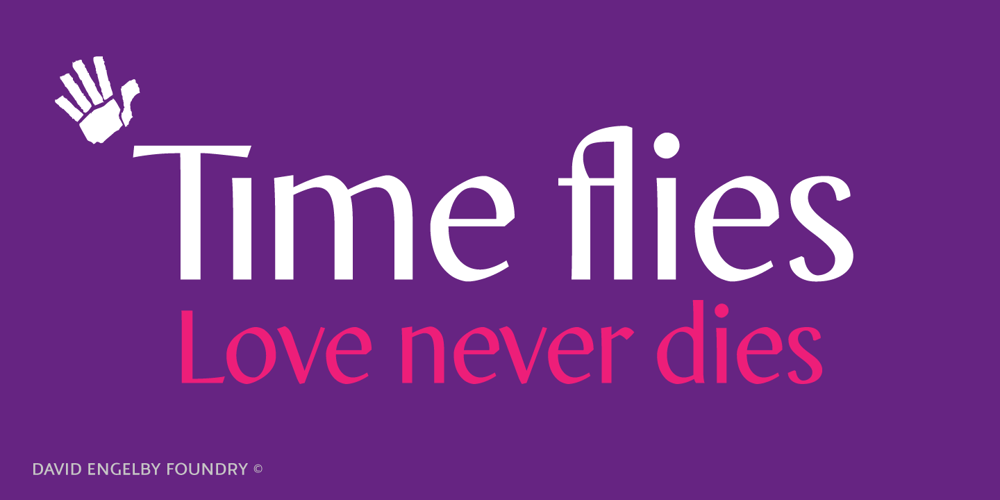
OnO Display Pro Font Family was designed by David Engelby and published by David Engelby Foundry. OnO Display Pro contains 1 styles and family package options. Go grab this rock’n’roll display typeface especially suited for posters and headlines in general. This typeface also has many banner dingbats which can be combined in many ways, but there are also finished banner dingbats ready to use. The quality doesn’t stop there, as you can also make use of Central European characters, adjusted Scandinavian characters and fine ligatures. Enjoy!